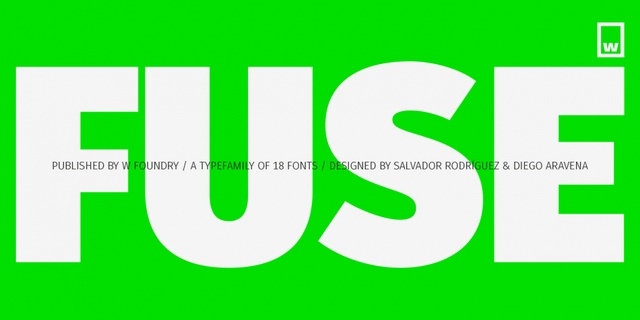
Fuse V.2 Font
Fuse V.2 Font is perfect for modern tech branding, digital interface design, contemporary marketing materials, startup communications, innovative product packaging, and cutting-edge web design projects. This versatile typeface excels in software applications, progressive corporate identities, futuristic advertising campaigns, and any application where sleek modernity and technological sophistication create forward-thinking visual experiences.
What makes Fuse V.2 Font so exciting is its perfect fusion of geometric precision with subtle humanist touches that create exceptional readability while maintaining a distinctly contemporary character. The font features clean, optimized letterforms with carefully crafted details that enhance both digital and print performance. Its balanced design represents the evolution of modern typography where functionality seamlessly merges with aesthetic innovation.
Fuse V.2 Font comes in a comprehensive family including Thin, Light, Regular, Medium, Bold, and Black weights. Each style features complete uppercase and lowercase character sets, technical symbols, modern numerals, and contemporary punctuation marks. The font family also includes condensed variants, italic styles, and alternative characters that provide designers with extensive flexibility for complex digital and brand applications.
The font's modern character makes it particularly effective for technology companies, design studios, innovative startups, and progressive organizations. Its exceptional performance ensures that Fuse V.2 Font excels across all digital platforms and print applications while maintaining its distinctive forward-thinking personality. The font's ability to communicate innovation and technological sophistication makes it an essential tool for any project requiring typography that bridges present functionality with future possibilities and represents the cutting edge of modern design.